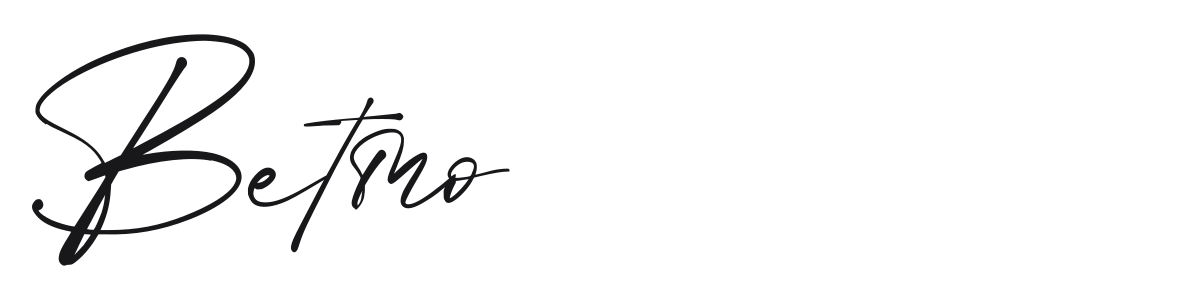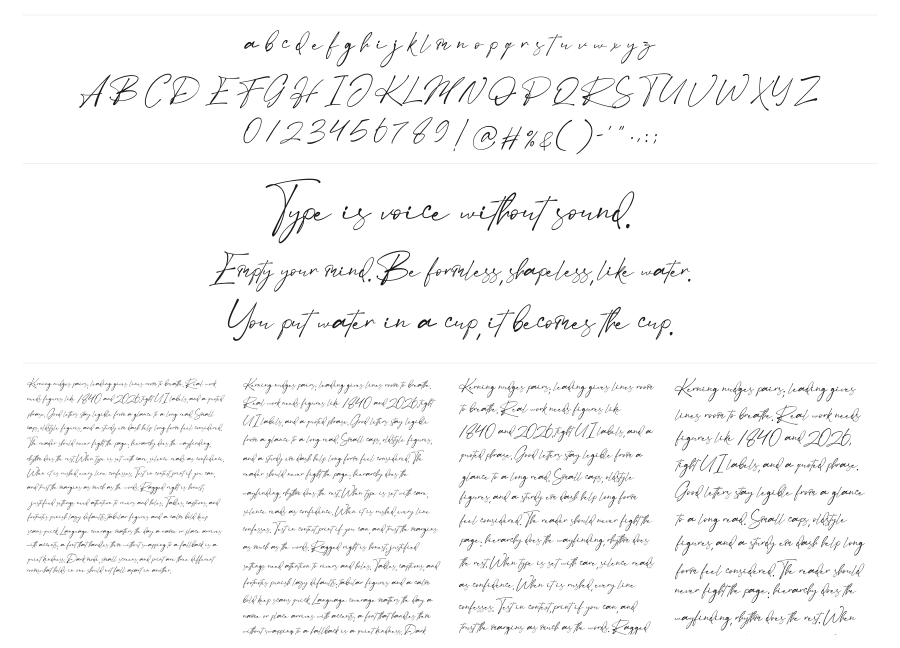
Betmo
Betmo is a casual handwritten script with long sweeping strokes and a natural, signature-like flow. The loose rhythm and fine pen weight give it an effortless, contemporary feel that sits somewhere between everyday handwriting and polished calligraphy. It works well at large sizes for logos, packaging, and lifestyle branding.